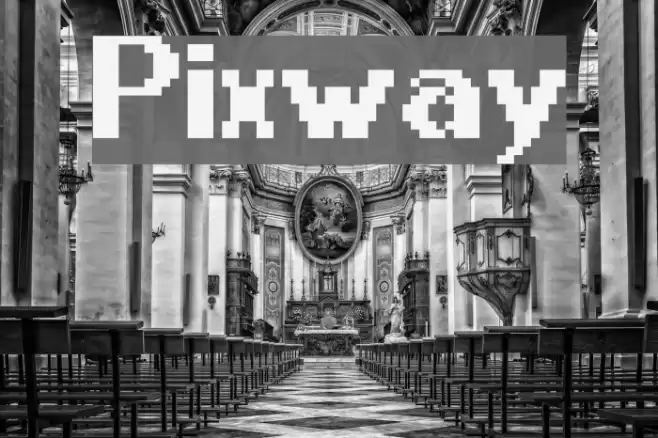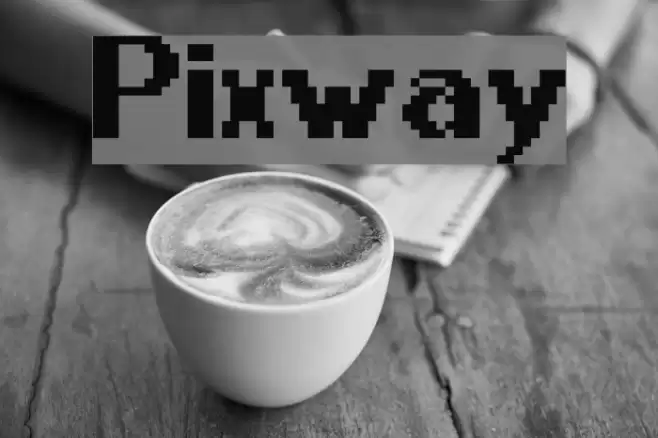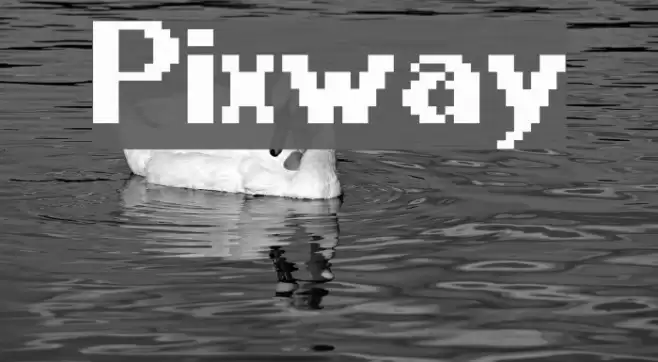
Pixway Font
Pixway Description
This font features a bold, pixelated design reminiscent of early digital displays and retro video games. The characters are constructed with a blocky, grid-like structure, giving it a distinctly digital and vintage feel. Uppercase and lowercase letters maintain a consistent height, with sharp angles and straight lines dominating the design. The numerals and special characters follow the same pixelated style, ensuring uniformity across all glyphs. This font's unique aesthetic makes it ideal for projects that aim to evoke nostalgia or a tech-inspired theme.
A bold, pixelated font with a retro digital aesthetic from Uncategorized fonts.
- Proposed Projects: Ideal for retro video game designs, tech-themed posters, digital art projects, and nostalgic branding.
- Overall Style: Vintage